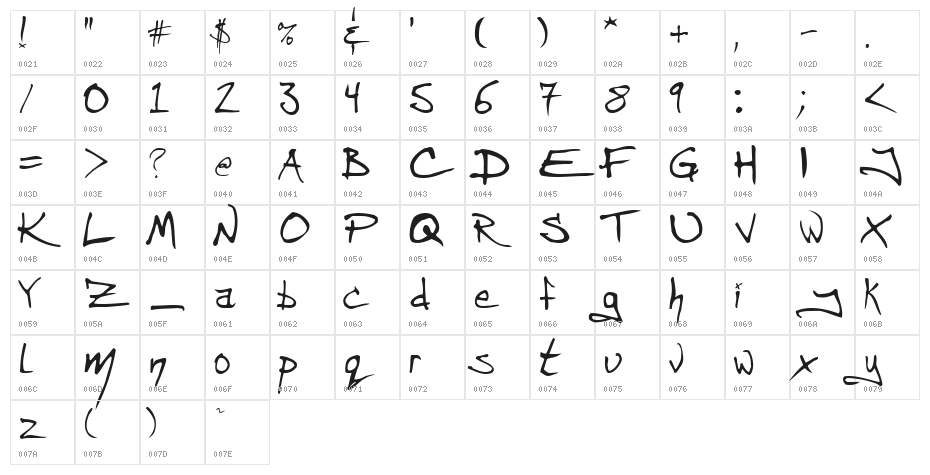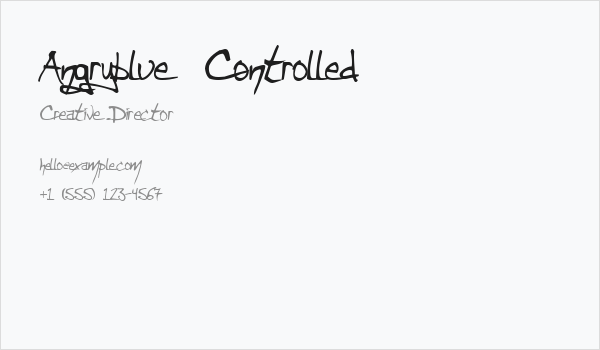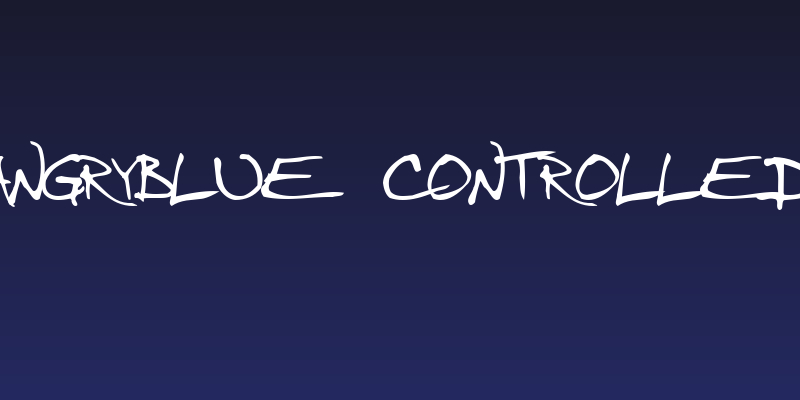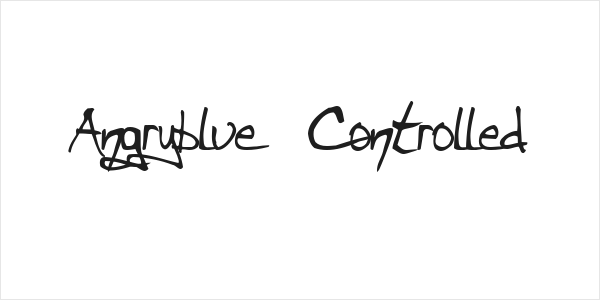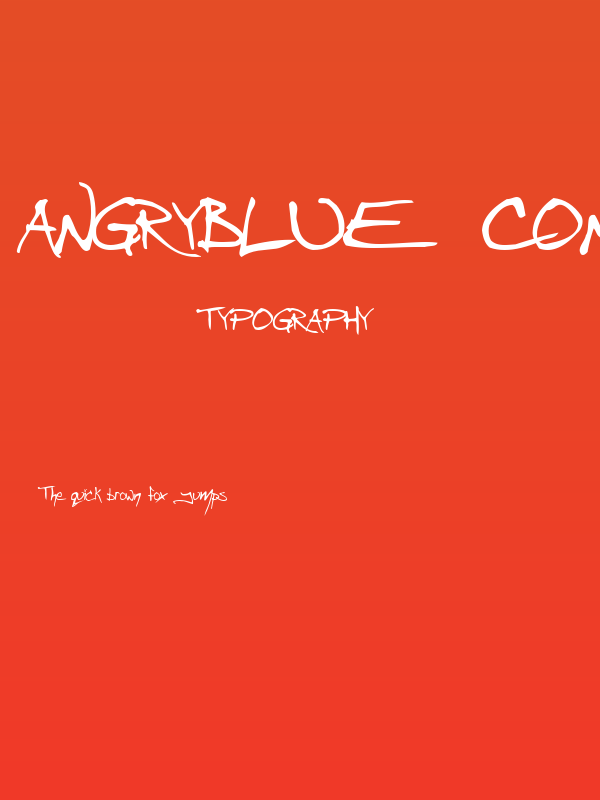
Angryblue Controlled Font
Angryblue Controlled Description
This font features a bold, expressive style with a hand-drawn appearance. The letters are characterized by their irregular, dynamic strokes, giving them an energetic and rebellious feel. The uppercase and lowercase letters maintain a consistent aesthetic, with exaggerated curves and sharp angles that create a sense of movement. The numbers and special characters follow the same design principles, ensuring a cohesive look across all glyphs. This font's unique style makes it stand out, offering a raw and edgy vibe that is both artistic and unconventional.
| Categories | Horror |
| Overall Style | Modern, Edgy |
| Use Case | Logos, Headlines, Artistic projects |
| Proposed Projects | Ideal for album covers, streetwear branding, graffiti art, and edgy poster designs. |